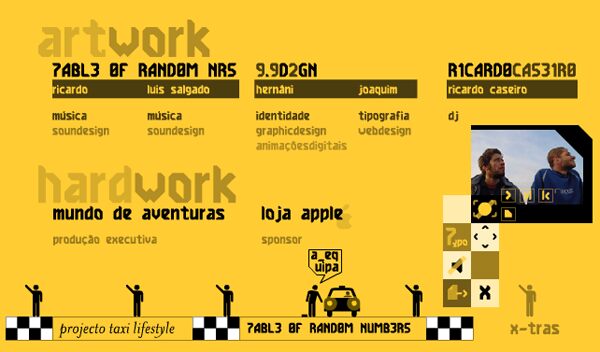
7ABL3, designed by Joaquim Ramalho for 9.9dZgn, is a free angular digital display font built from broad, sharply cut strokes. The blocky capitals combine diagonal corners with rectangular gaps and stepped breaks, giving the alphabet a hard, machine-made silhouette reminiscent of arcade graphics with a severe sci-fi edge.
As an electronic badge or industrial label, the lettering becomes part of the graphic itself and suits game branding, music posters, tech merchandise, and science-fiction event graphics. Its strongest role is a futuristic title that resembles a cut-metal emblem rather than ordinary type.
This was the first font I created for the band "Table Of Random Numbers" in 1999 or 2000.